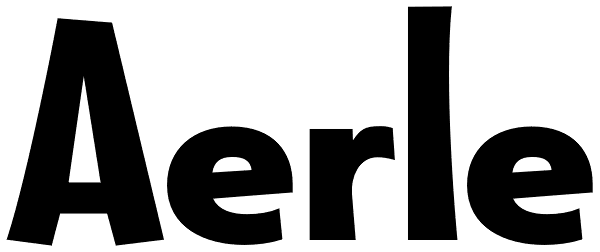
Aerle
My first font for 2009 was Aerle. It is a new dark sans serif font in my continuing objective of designing book fonts that I can really use. It made a little ripple in the industry, but more than that I found that I loved it with Aramus and Artimas...